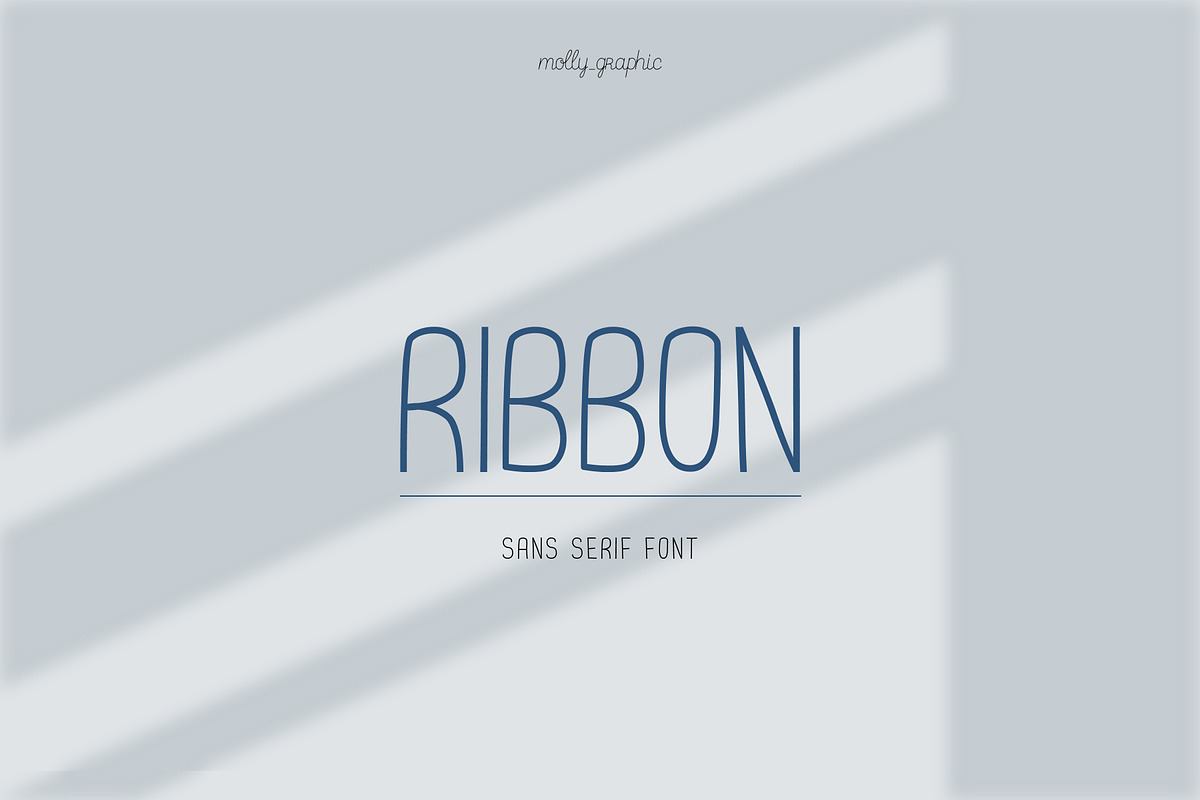
RIBBON Sans Serif Font Free Download is a clean and contemporary typeface designed with sleek simplicity and versatile style. With its crisp lines and subtle elegance, this font is perfect for modern branding, minimalist logos, product packaging, editorial layouts, and stylish web content.
RIBBON Sans Serif Font Free Download combines functionality with refined aesthetics, making it ideal for both professional and creative uses. Its letterforms are well-balanced and easy to read, yet they carry a unique sophistication that sets your design apart from the ordinary.
Whether you're working on fashion lookbooks, lifestyle blogs, beauty product labels, or digital marketing visuals, this font adapts effortlessly—like tying a bow on a polished presentation.
Pair it with delicate script fonts for contrast or let it stand on its own in bold, minimal layouts. Either way, RIBBON brings clarity, charm, and a dash of modern class.